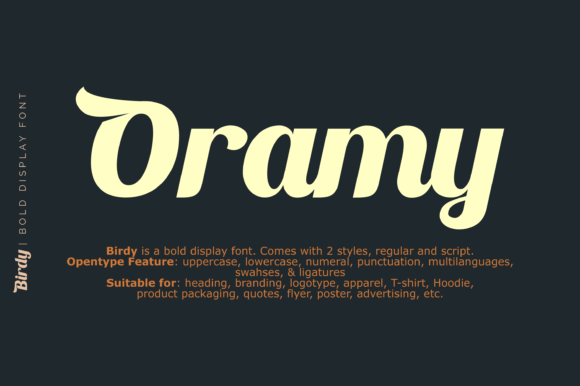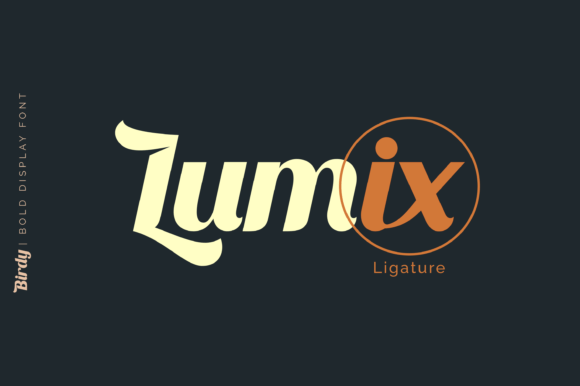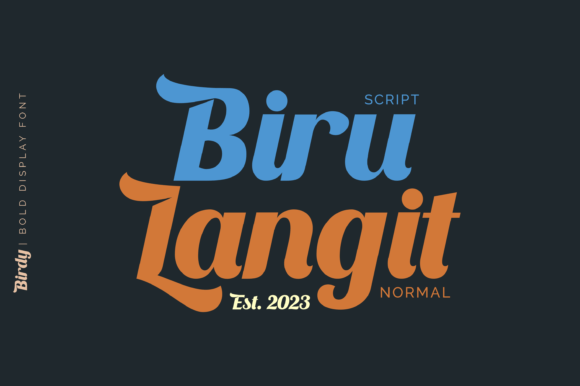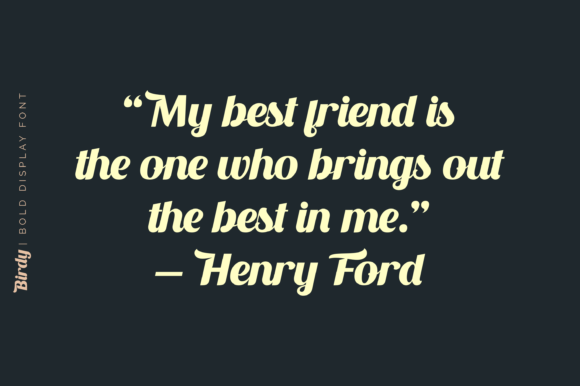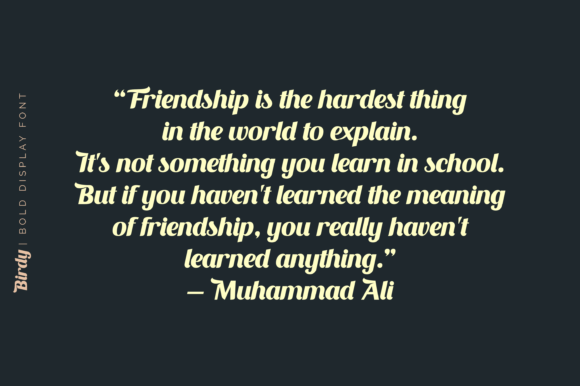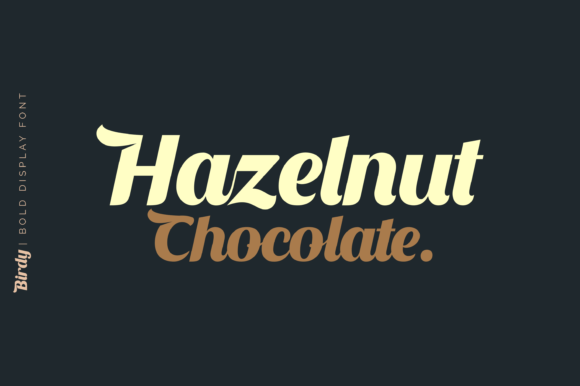
Birdy Font: Elevate Your Designs with a Bold and Versatile Typeface
Are you on the hunt for a font that can add a touch of sophistication and boldness to your designs? Look no further than Birdy Font, a stunning display font that is sure to take your creative projects to the next level. In this article, we’ll dive into the world of Birdy Font, exploring its features, uses, and benefits for designers and crafters alike.
What is Birdy Font?
Birdy Font is a bold display font that comes in two stylish variations: regular and script. This versatile typeface is designed to make a statement, making it perfect for a wide range of applications, from headings and logotypes to branding, packaging design, posters, websites, editorials, headlines, advertising, and more.
Key Features of Birdy Font
• Bold and Eye-Catching: Birdy Font is designed to grab attention, with bold lines and a confident presence that demands to be noticed.
• Two Stylish Variations: Choose from regular and script styles to add some variety to your designs and match your brand’s unique personality.
• Highly Versatile: Use Birdy Font for a wide range of projects, from digital designs to print materials, and everything in between.
• Easily Readable: Despite its bold nature, Birdy Font remains highly readable, even at smaller sizes, making it perfect for use in a variety of contexts.
Uses of Birdy Font
So, what can you use Birdy Font for? The possibilities are endless! Here are some ideas to get you started:
• Headings and Titles: Use Birdy Font to create bold, eye-catching headings that draw readers in and set the tone for your content.
• Logotypes and Branding: Create a lasting impression with Birdy Font, perfect for crafting memorable logos and brand identities.
• Packaging Design: Stand out on store shelves with Birdy Font, ideal for packaging design that needs to make a statement.
• Poster Design: Create striking posters that grab attention with Birdy Font, perfect for promoting events, products, or services.
• Website and Display: Elevate your website or display design with Birdy Font, great for creating visually appealing and engaging digital experiences.
• Editorial and Headlines: Use Birdy Font to add a touch of sophistication and style to your editorial designs, from magazines to newspapers.
• Advertising: Make your ads stand out with Birdy Font, perfect for creating bold, attention-grabbing campaigns.
Benefits of Using Birdy Font
So, why choose Birdy Font for your designs? Here are just a few benefits:
• Instant Impact: Birdy Font is designed to make a statement, adding instant impact and attention-grabbing appeal to your designs.
• Flexibility: With two stylish variations, Birdy Font offers flexibility and versatility, allowing you to experiment with different looks and feels.
• Time-Saving: Birdy Font is easy to use and customize, saving you time and effort in the design process.
• Professional Results: With Birdy Font, you can achieve professional-looking results, even if you’re not a seasoned designer.
Font Name Birdy Font
Author Omotu
In conclusion, Birdy Font is a bold and versatile typeface that is sure to elevate your designs and take your creative projects to new heights. With its two stylish variations, high versatility, and ease of use, Birdy Font is perfect for designers and crafters alike. Whether you’re working on a branding project, packaging design, or digital display, Birdy Font is the perfect choice for adding a touch of sophistication and style.